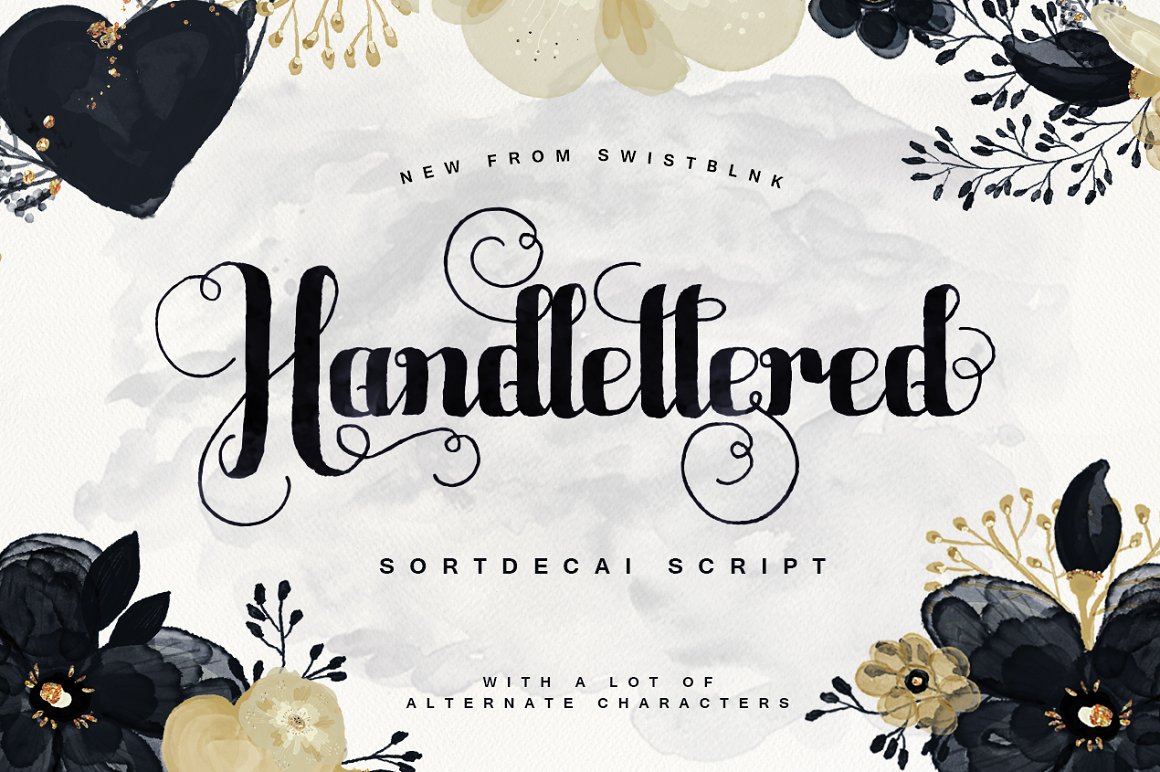
Sortdecai Script
Sortdecai Script Font
Introducing our new Sortdecai Script, Sortdecai Script is another hand lettered modern vintage script typefaces, which is combining the style of classic calligraphy with an modern style. Sortdecai Script is a part of Sortdecai Family.